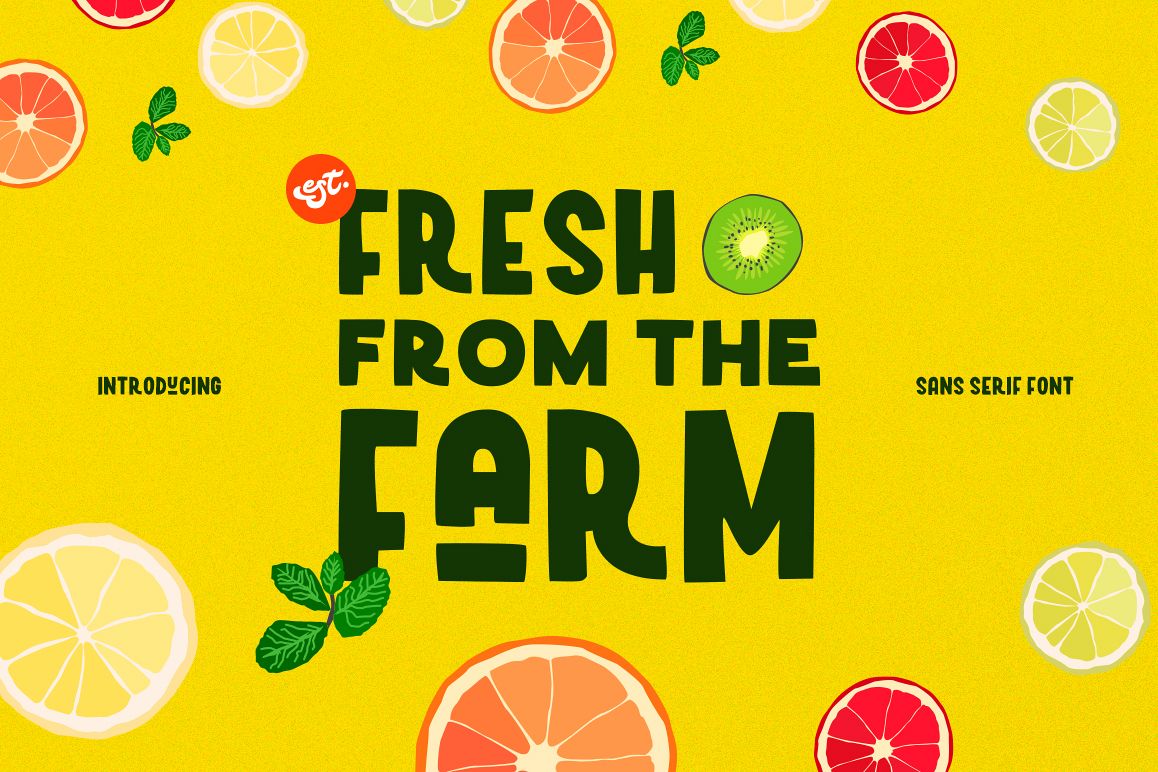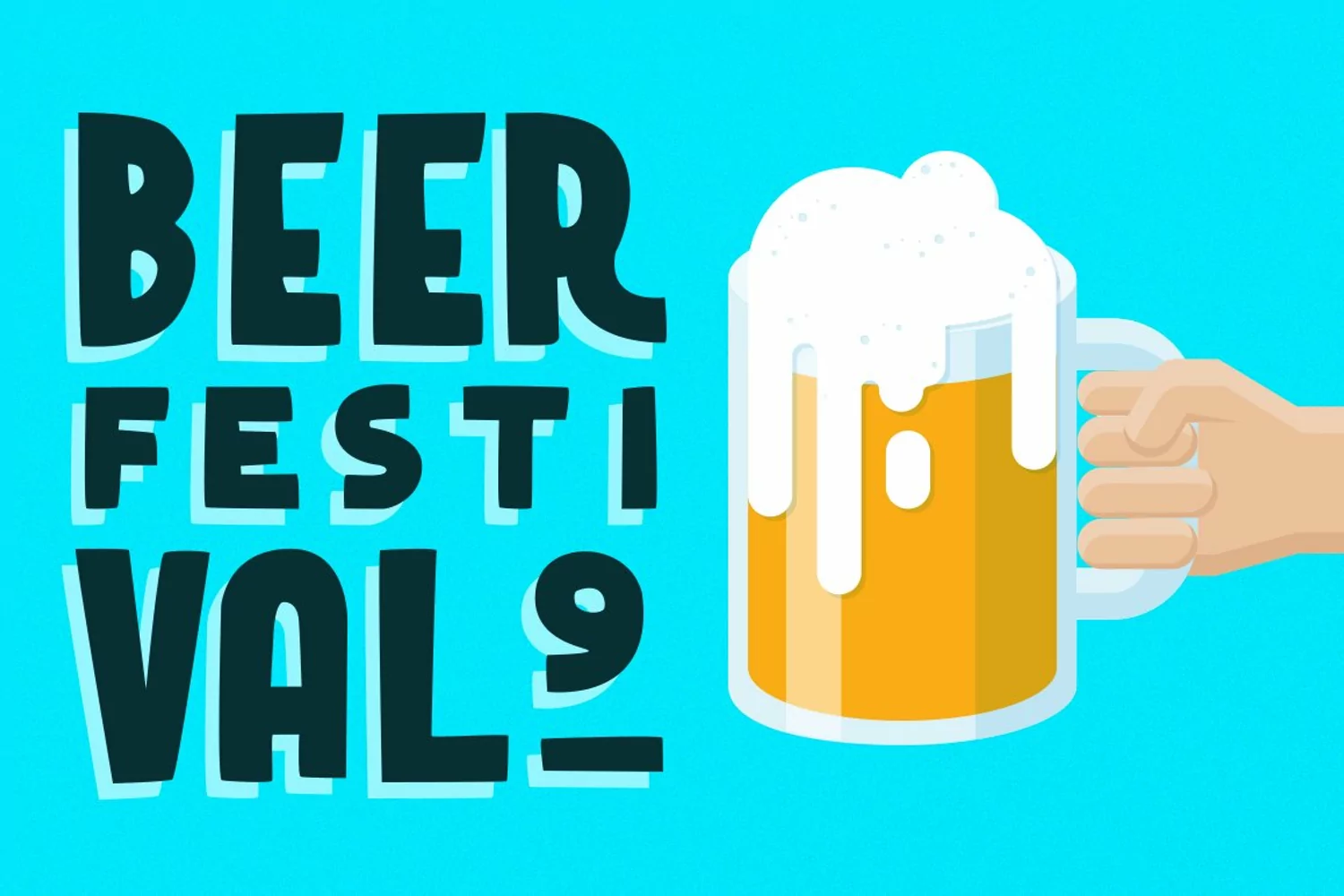
Fresh From the Farm
Fresh From The Farm - A fun sans serif set inspired from a local festival celebration in every country of the world.To celebrate the event, I produced the Fresh From The Farm to give that bold look in the event marketing materials, which adds more personality to your work.
With a solid face and a sans which look great in your social media present, logo and branding or other creative fun projects, even you can easily costumize the set as your style. Combining all these styles can generate many different typographic layouts for packing, book covers or just quotes to post to your social media.